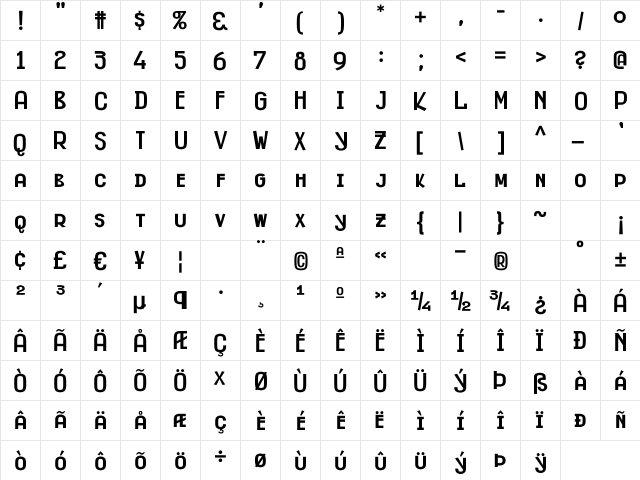
Fitzgerald Black Regular
| Foundry | Objets Dart |
| Designer | Darren Rigby |
Design Context for Fitzgerald Black Typeface
Fitzgerald Black takes a measured approach to typography — its balanced proportions and neutral character make it a reliable workhorse for both digital and print work.